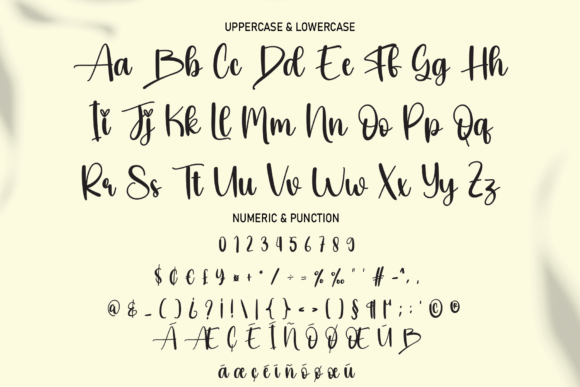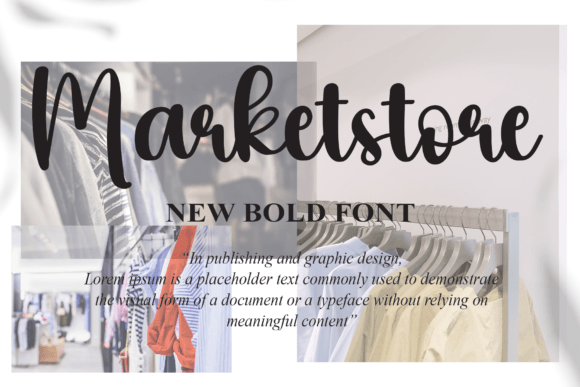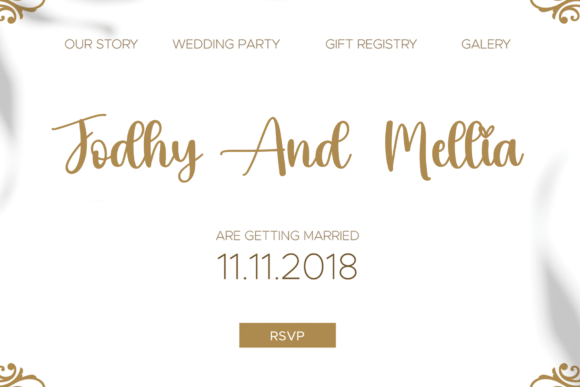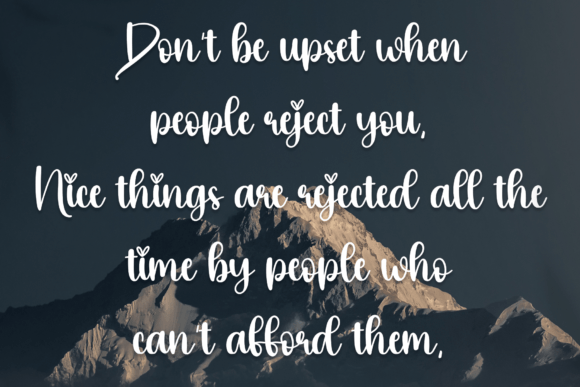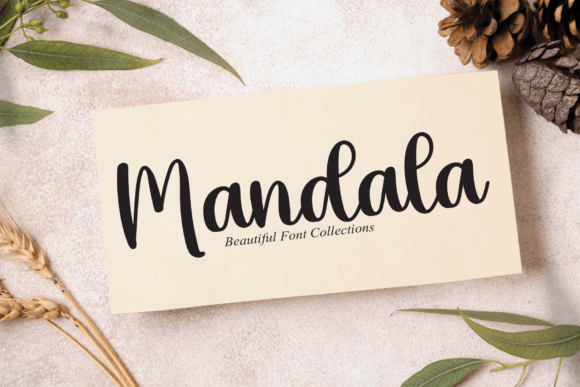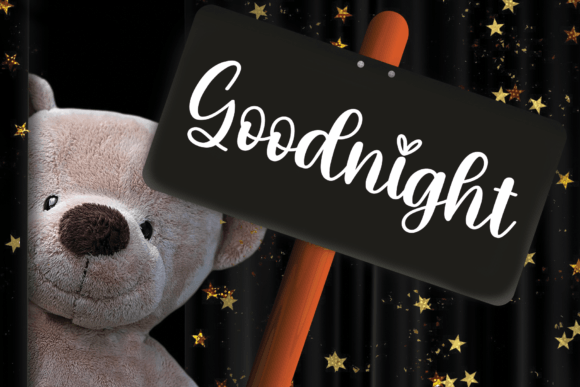
Bekind Font: Elevate Your Designs with a Modern Handwritten Touch
In the world of design, fonts play a crucial role in conveying the message and aesthetic of a project. For designers and crafters looking to add a personal touch to their creations, the Bekind font is an excellent choice. Bekind is a modern and simple handwritten font that has been specially crafted to make your designs extraordinary. Its versatility and elegance make it perfect for a wide range of applications, from wall displays and wedding invitations to social media posts and product packaging.
The Characteristics of Bekind Font
Bekind font is characterized by its clean and simple handwritten style. It boasts a modern look that is both elegant and approachable. The font’s simplicity ensures that it remains legible across various sizes and resolutions, making it an excellent choice for both digital and print designs. The fluidity of the strokes and the balanced spacing between letters contribute to its readability and aesthetic appeal.
Uses of Bekind Font
The versatility of Bekind font is one of its most significant advantages. It can be used in a multitude of design projects, including:
- Wall Displays: Create eye-catching wall art or posters with a personal touch.
- Wedding Invitations: Add an elegant and intimate feel to your wedding invitations.
- Social Media Posts: Stand out on social media platforms with unique and engaging posts.
- Logos: Use Bekind font to create memorable and stylish logos for your brand.
- Advertisements: Enhance your advertising materials with a modern and appealing font.
- Product Packaging: Give your product packaging a personalized and premium look.
- Product Designs: Incorporate Bekind font into your product designs for a distinctive touch.
- Labels: Create attractive and clear labels for your products or files.
- Photography: Use Bekind font for watermarks or captions in your photographs.
- Invitations: Perfect for any event, Bekind font adds a touch of elegance to your invitations.
- Stationery: Elevate your stationery designs with a modern and simple handwritten font.
Why Choose Bekind Font?
Bekind font offers several benefits that make it a preferred choice among designers and crafters:
- Unique and Personal Touch: The handwritten nature of Bekind font adds a unique and personal touch to your designs.
- Elegance and Simplicity: Its elegant and simple style ensures that your designs are both sophisticated and accessible.
- Versatility: Suitable for a wide range of projects, Bekind font is a versatile addition to any designer’s toolkit.
- Legibility: The font’s clarity makes it suitable for both headings and body text.
Tips for Using Bekind Font Effectively
To make the most of Bekind font, consider the following tips:
- Pair with Other Fonts: Combine Bekind font with other fonts to create contrast and hierarchy in your designs.
- Adjust Size and Color: Experiment with different sizes and colors to emphasize certain elements of your design.
- Consider the Context: Ensure that Bekind font aligns with the overall theme and message of your project.
Bekind font is a modern and simple handwritten font that can elevate your designs to new heights. Its elegance, versatility, and legibility make it an excellent choice for a wide range of applications. Whether you are a professional designer or a crafter, Bekind font offers the perfect blend of style and functionality to make your projects stand out. Explore the possibilities of Bekind font and discover how it can add a personal and extraordinary touch to your designs.